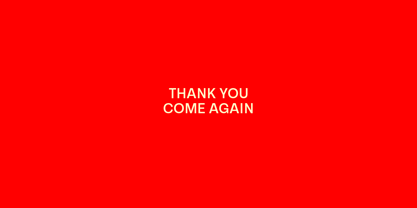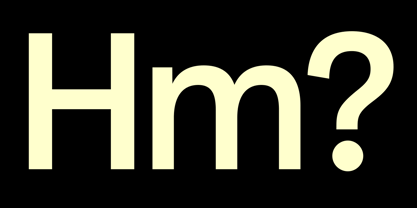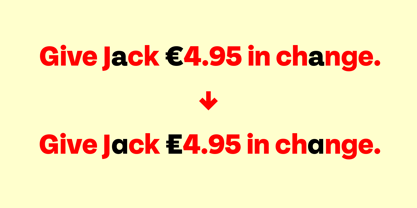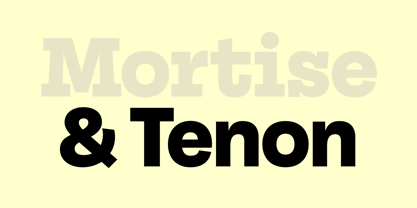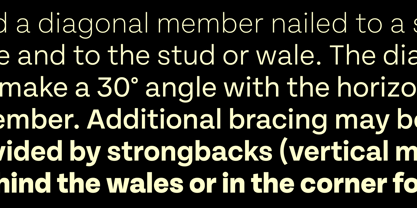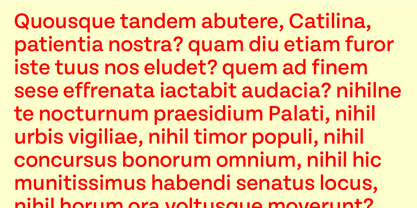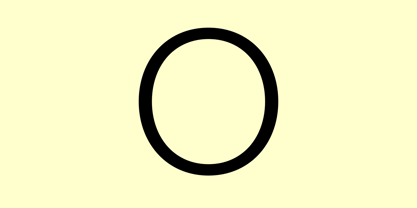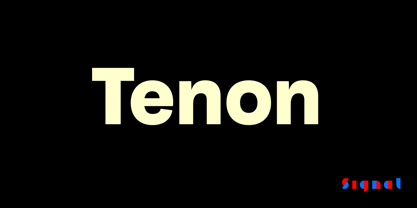
Tenon
Die Schriftfamilie Tenon wurde von Max Phillips, Seán Mongey entworfen und von Signal veröffentlicht. Tenon enthält 3 Stile und Familienpaketoptionen.
When we trimmed the serifs off our new slab serif family
Mortise
, we found a plain, efficient sans that marches through the uncanny valley between grotesk and geometric, with almost circular bowls that lend extra energy to the line. Like its sibling, Tenon has open counters, a generous x-height, and wide proportions that suit small sizes and small screens. Used larger, its brisk, optimistic air makes it a good choice for projects ranging from editorial design to signage. It’s available in six weights, from the precise X-Light to the muscular X-Bold.